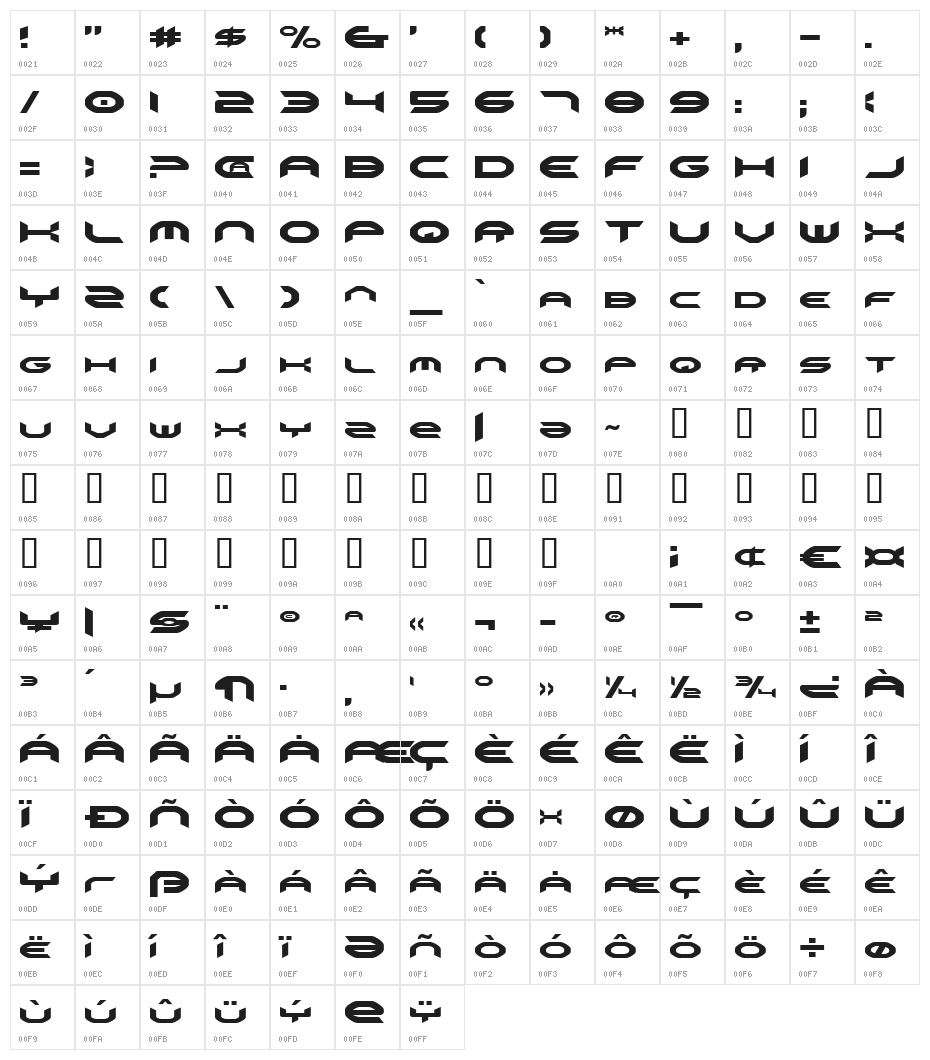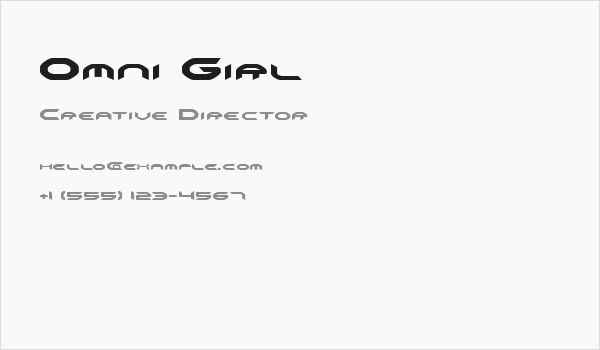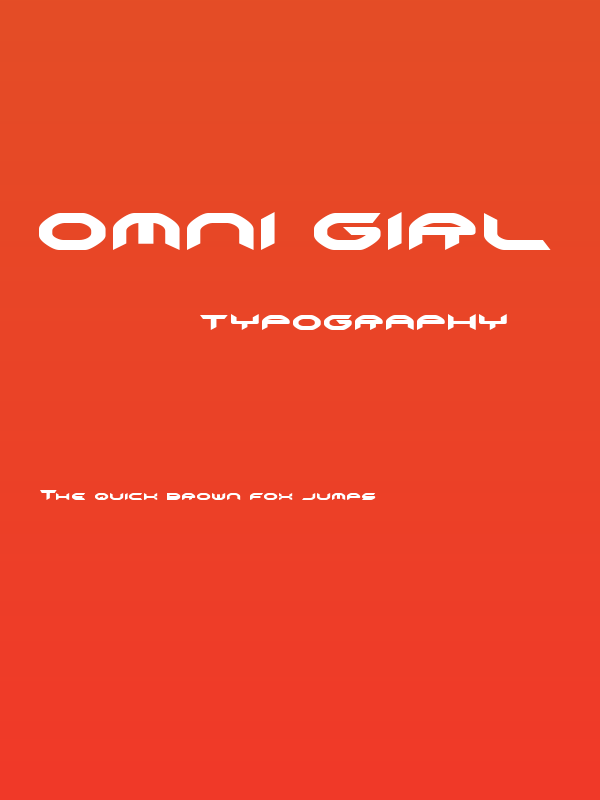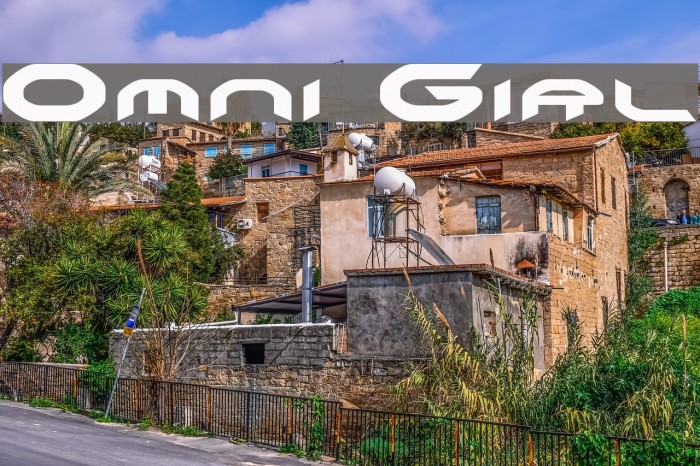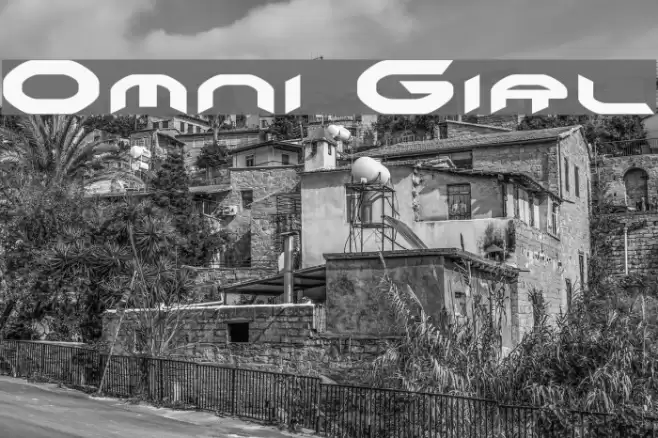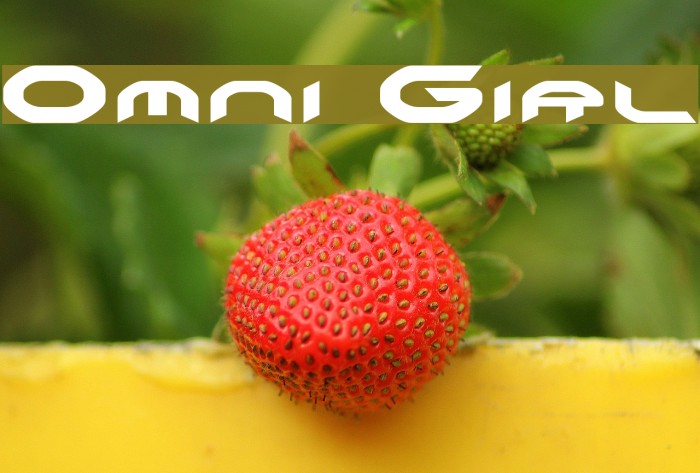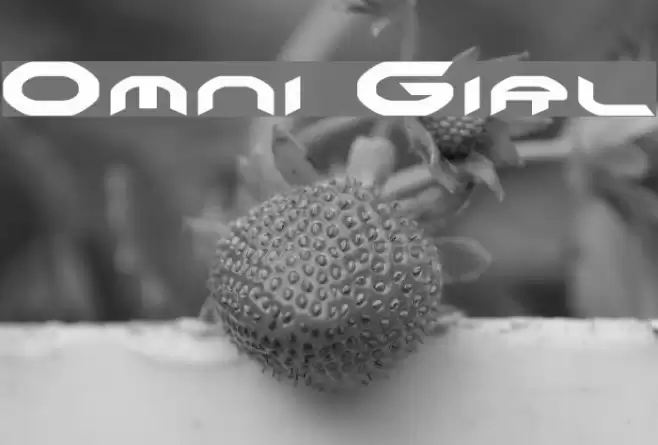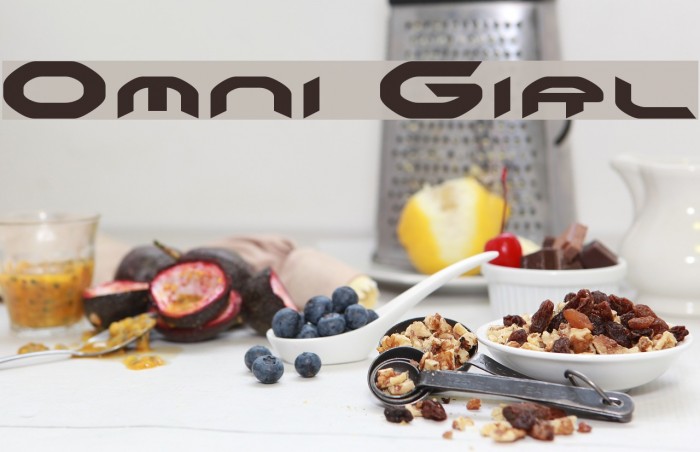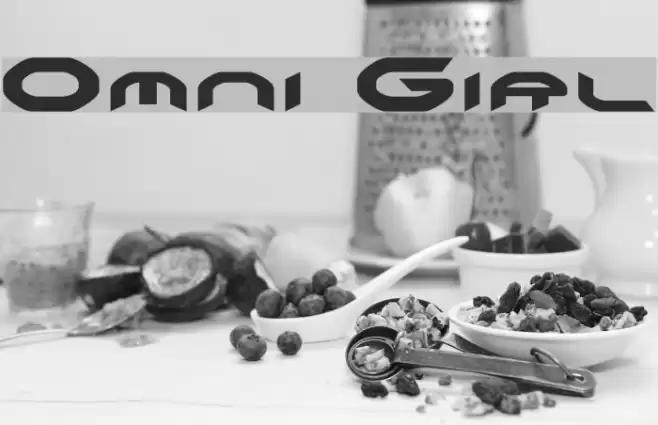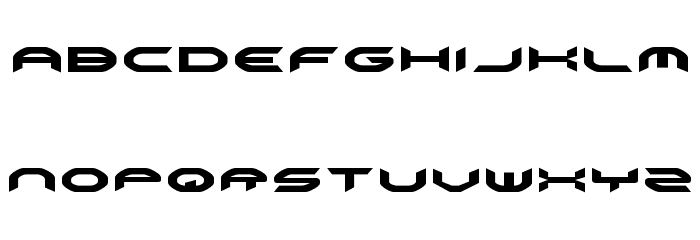
Omni Girl Font
Omni Girl Description
This font features a futuristic and angular design, characterized by sharp edges and geometric shapes. The uppercase and lowercase letters maintain a consistent style, with a bold and striking appearance. The numbers and special characters follow the same design principles, ensuring uniformity across all glyphs. The font's unique style makes it stand out, with a modern and tech-inspired aesthetic that is both eye-catching and distinctive. The characters are well-spaced, allowing for clear readability despite the intricate design elements. This font is ideal for projects that require a bold statement and a contemporary look.
| Proposed Projects | Ideal for technology branding, sci-fi movie posters, video game titles, and modern graphic design projects. |